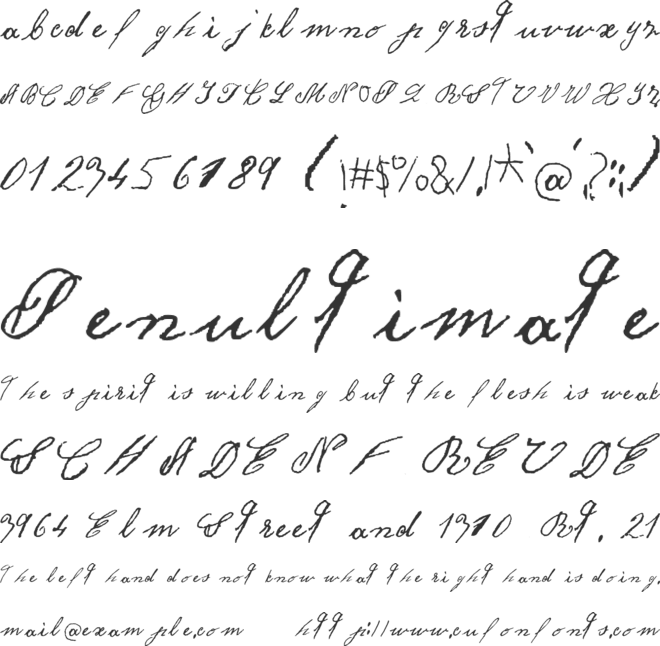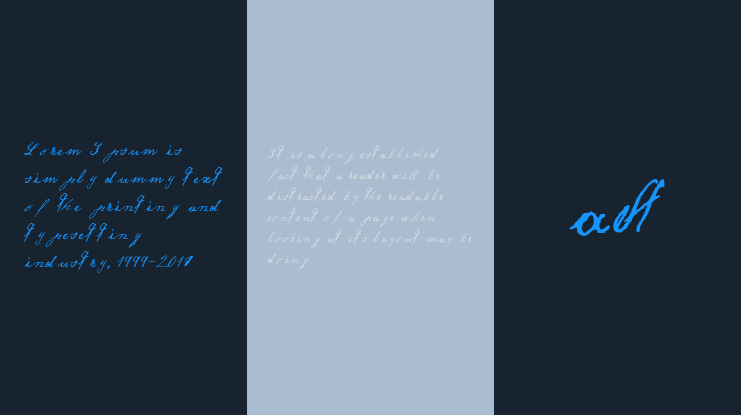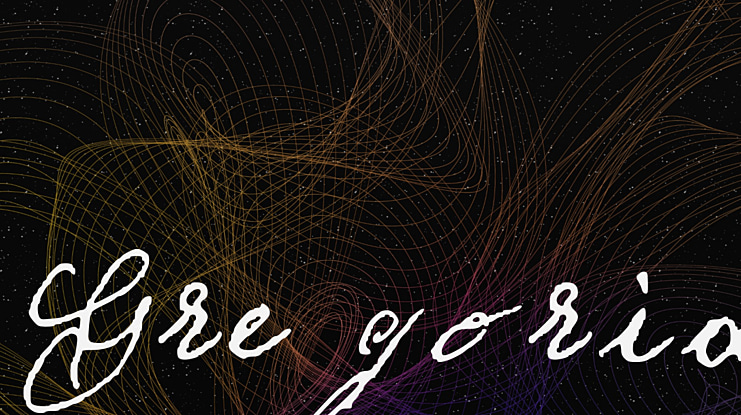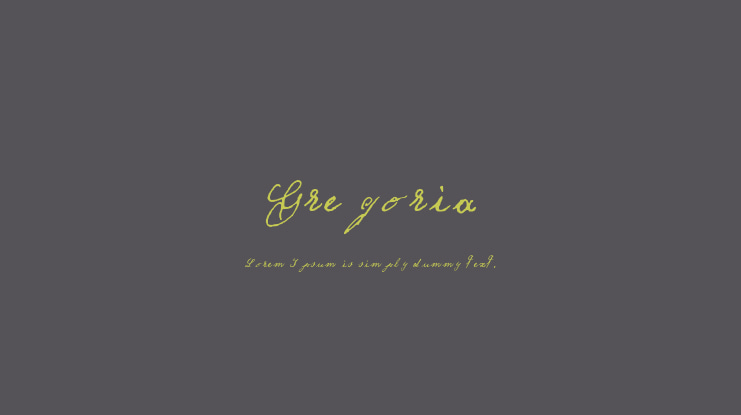
Gregoria Font
Typical Castilian XIX century handwriting from Spain. This font has a literary and natural look.
This font includes all characters used in Spanish, Portuguese, French, English and Irish, and compatible with Latin script languages.